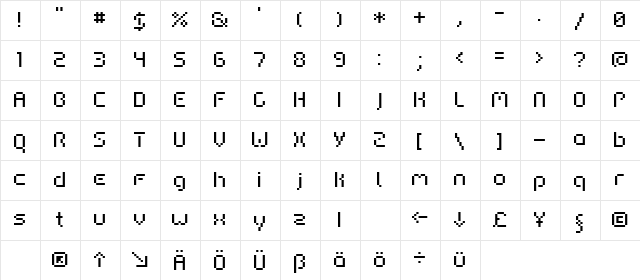
HIAIRPORT FFM Regular
Design Context for HIAIRPORT FFM Typeface
HIAIRPORT FFM is a composed and adaptable typeface that performs quietly and consistently across a wide range of design contexts.